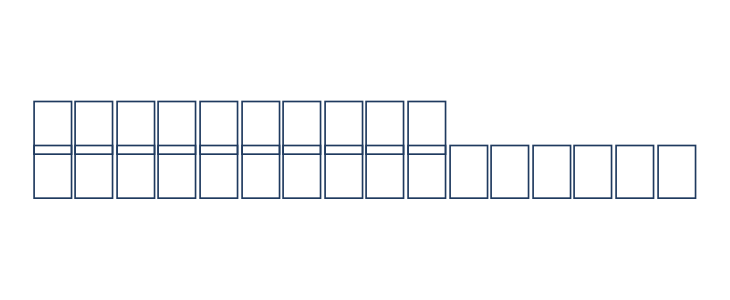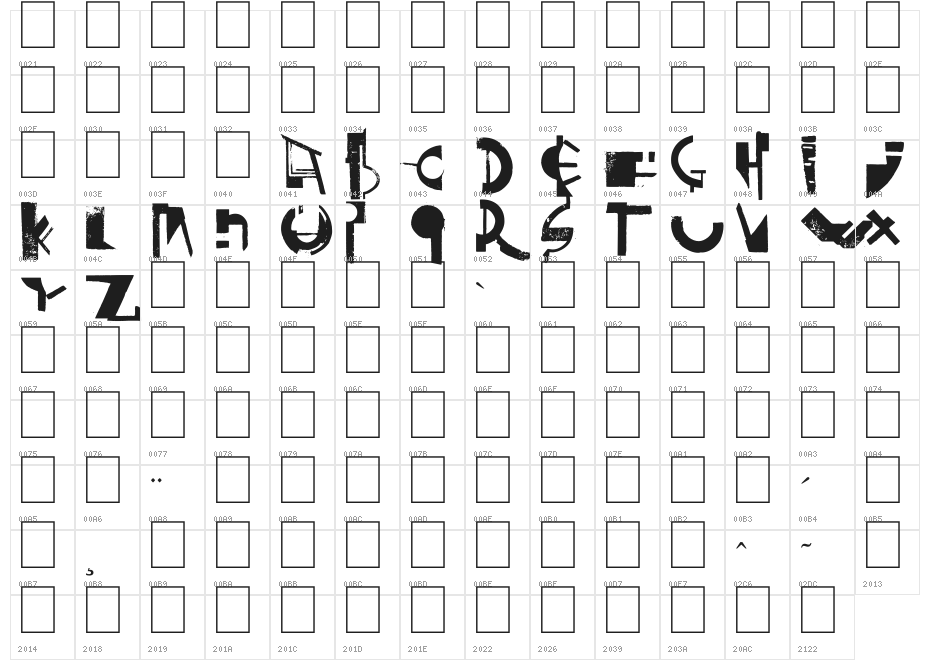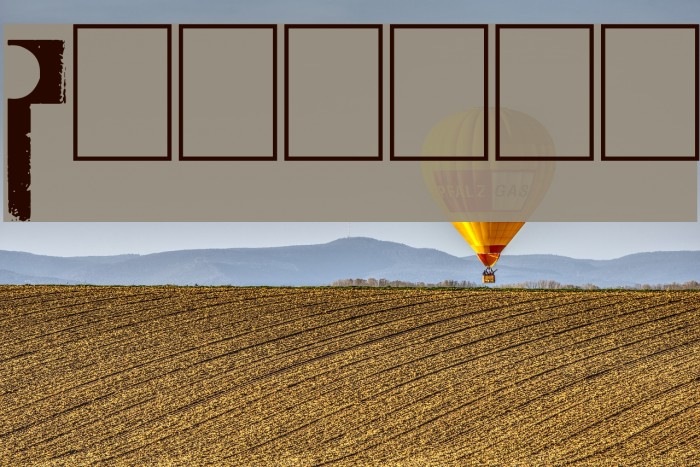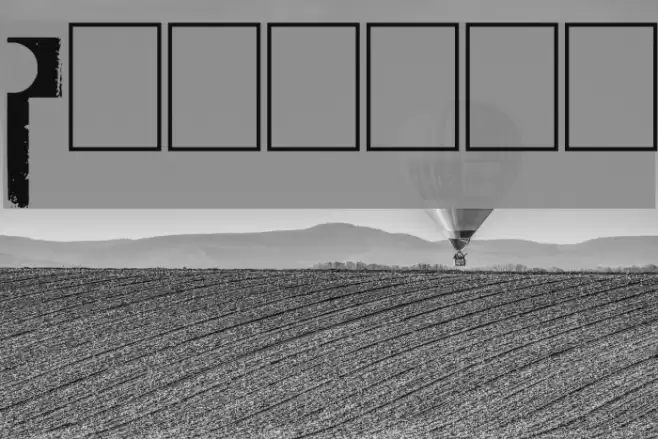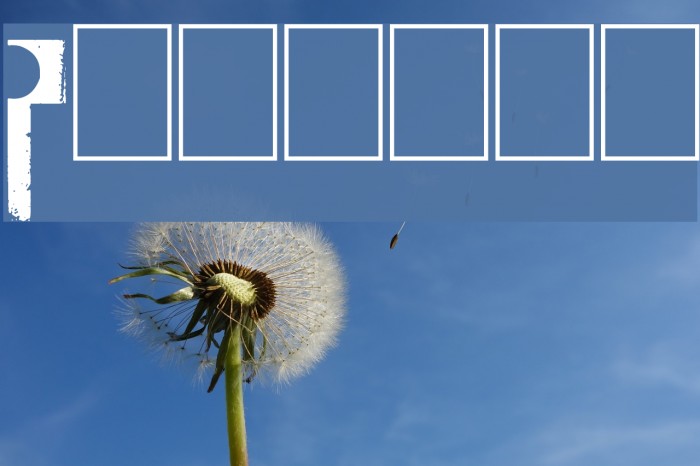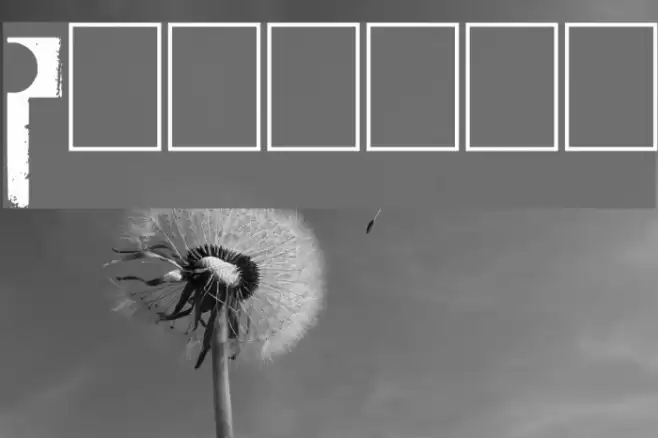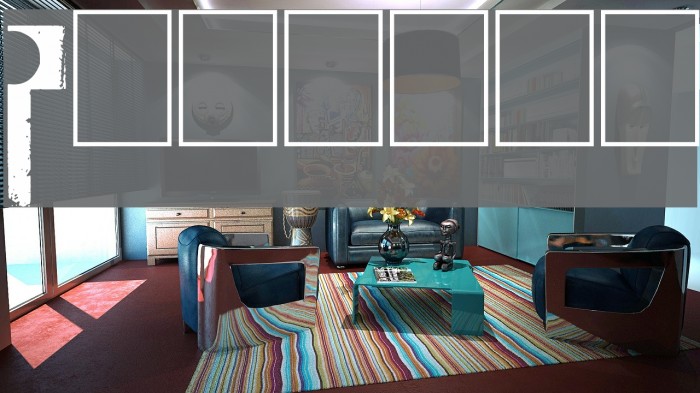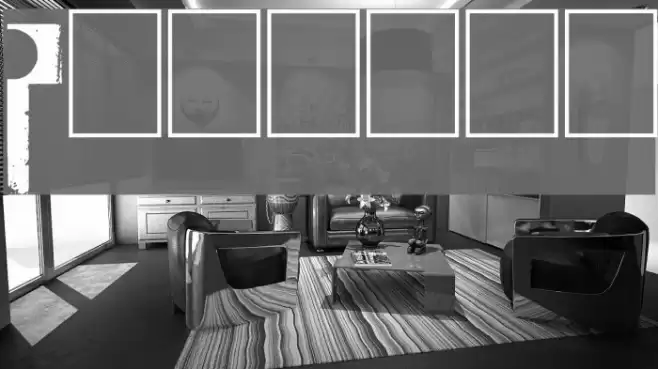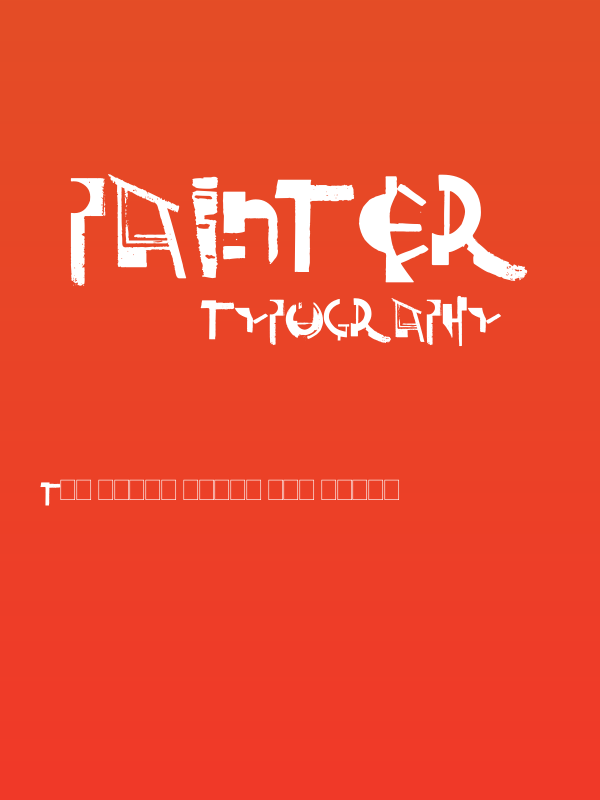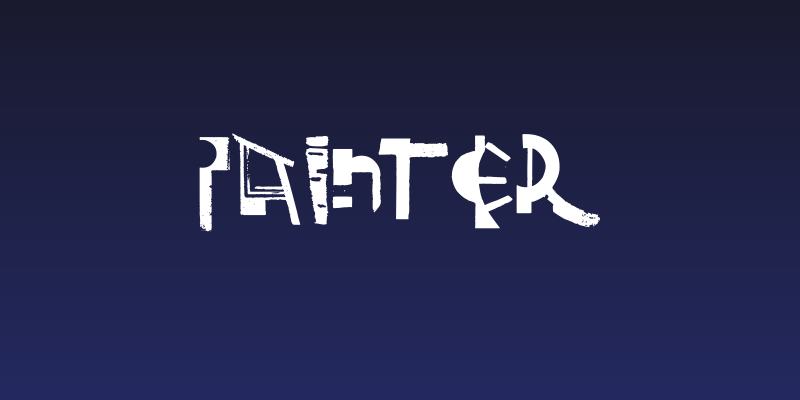
Painter Font
Painter Description
This font exhibits a bold, artistic style with a distressed, grunge texture that gives it a unique, hand-painted appearance. The uppercase letters are particularly striking, featuring irregular shapes and varying line thicknesses that create a dynamic and energetic feel. The font lacks lowercase letters and numbers, focusing instead on a strong visual impact with its uppercase set. The special characters maintain the same distressed look, adding to the overall cohesive design. This font is ideal for projects that require a bold statement or an edgy, creative touch.
| Proposed Projects | Ideal for album covers, posters, street art designs, and any project needing a bold, artistic flair. |